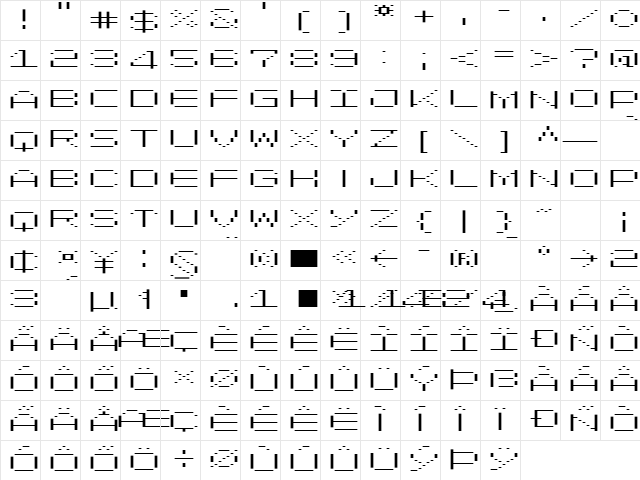
LomoWallMinus LT Std 50 Regular
| Foundry | Linotype Library GmbH |
| Designer | Fidel Peugeot |
Design Context for LomoWallMinus LT Std 50 Typeface
LomoWallMinus LT Std 50 is a composed and adaptable typeface that performs quietly and consistently across a wide range of design contexts. Its slender proportions lend an understated elegance to any composition.